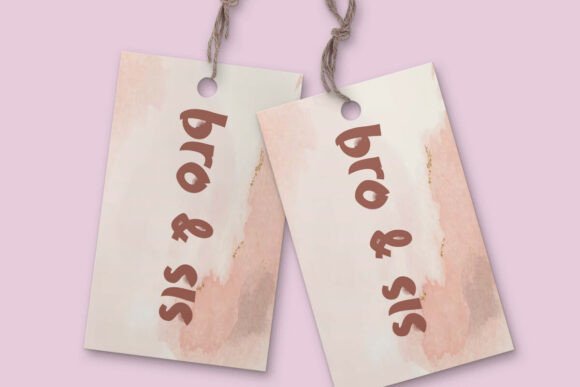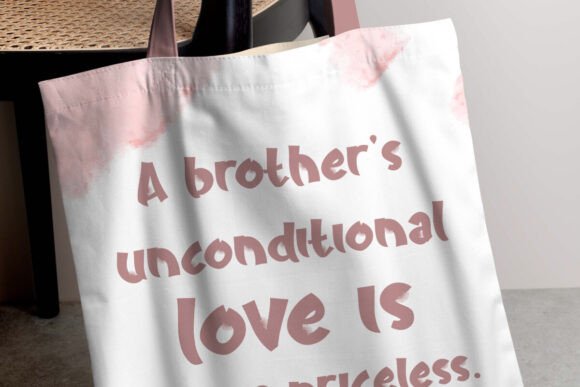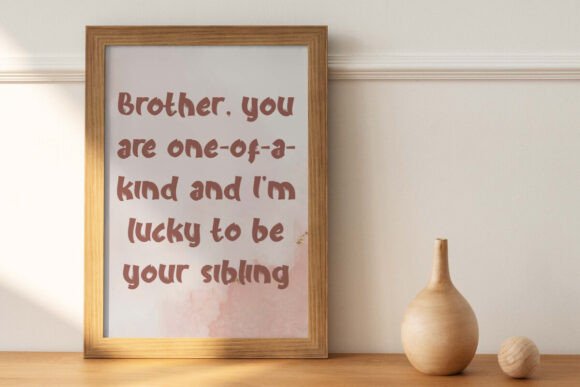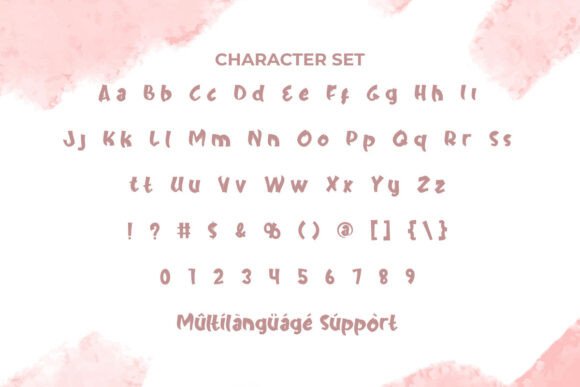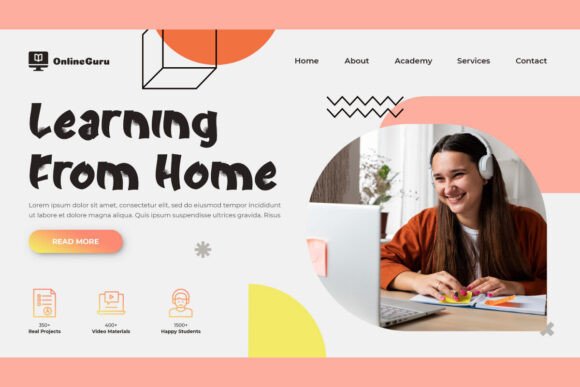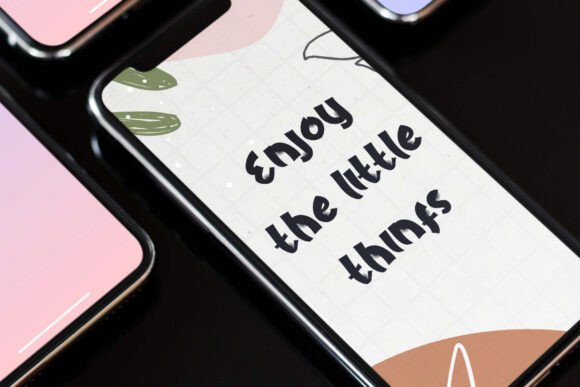
The Ultimate Guide to Bro & Sis Font: Elevate Your Designs with a Unique Japanese Brush Display Font
I’ll never forget the time I was working on a project for a client who wanted a bold, eye-catching font to capture the essence of Japanese culture. I scoured the internet for the perfect font, but nothing seemed to fit the bill. That was until I stumbled upon Bro & Sis Font, a game-changing Japanese brush display font that exceeded my expectations. In this article, I’ll share my experience with Bro & Sis Font, its unique features, and how to make the most of it in your designs.
What is Bro & Sis Font?
Bro & Sis Font is a distinctive Japanese brush display font that adds a touch of elegance and sophistication to any design. Its sharp and solid letters with inner corners create a beautiful blurry effect, making it perfect for a wide range of applications, including apps, billboards, blogs, covers, flyers, headers, logos, packaging design, posters, price labels, screen prints, signage, stationery, stickers, titles, websites, and more.
• 💥 Unique and bold design that grabs attention
• ✅ High-quality font with precise brush strokes
• 🎨 Versatile and adaptable to various design styles
• 📈 Perfect for headlines, titles, and emphasis text
While Bro & Sis Font is an excellent choice for many designs, there are a few things to keep in mind:
• 🤔 May not be suitable for body text or small font sizes due to its bold and decorative nature
• ⚠️ Limited legibility when used in all caps or with certain background colors
The Story Behind Bro & Sis Font
Bro & Sis Font was designed by a team of creative enthusiasts who wanted to capture the essence of Japanese culture in a unique and modern way. Inspired by traditional Japanese brush calligraphy, they created a font that combines bold, expressive brush strokes with a touch of modernity. The result is a font that is both elegant and attention-grabbing.
Q: What is the best way to use Bro & Sis Font in my designs?
A: Bro & Sis Font is perfect for headlines, titles, and emphasis text. Use it to add a touch of elegance and sophistication to your designs.
Q: Is Bro & Sis Font available in different languages?
A: Bro & Sis Font may not support all languages, but it does include a range of glyphs and stylistic alternates to help you create unique and creative designs.